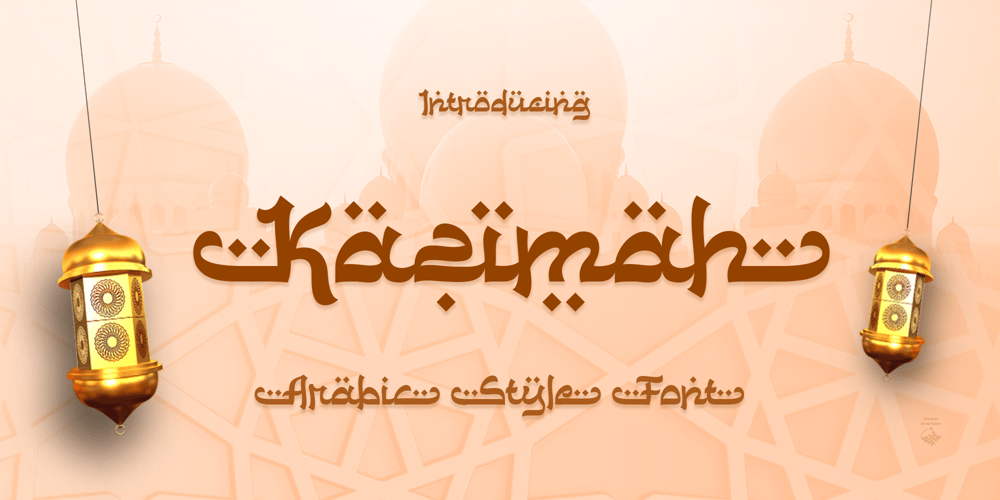
Kazimah Font Family was designed by Hanif Maulazi and published by Haniefart. Kazimah contains 1 styles and family package options. Indulge in the captivating magic of the Kazimah typeface, an enchanting blend of classic Arabic calligraphy and innovative design elements. Kazimah proffers adaptability and intricate personalization, providing a distinctive flair and refinement to a myriad of projects. Convey power in finely crafted poster headlines, or leave a lasting imprint with sleek business cards and invitations. Kazimah is the embodiment of artistic grandeur, injecting a luxurious magnetism into high level publications and introducing a refined rhythm to cartoon narratives. This typeface effortlessly transforms commonplace items, like t-shirts, into visually compelling treasures and morphs intricate banners into awe inspiring masterpieces. The Kazimah typeface radiates a unique charm, infusing a resplendent charisma to every visual interaction it underscores.